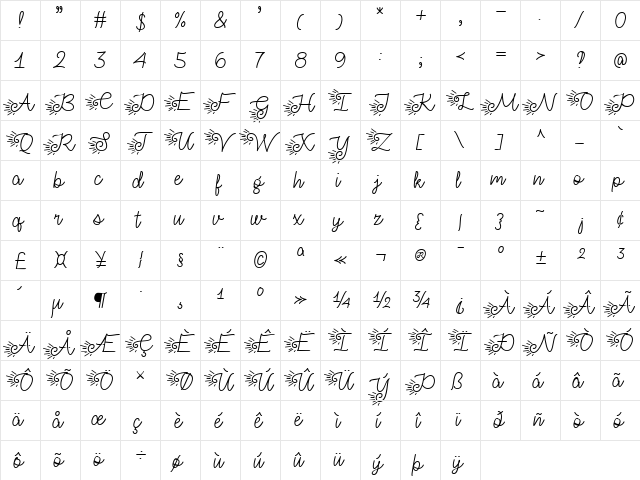
Make Summer Fun Regular
Design Context for Make Summer Fun Typeface
Make Summer Fun has an approachable, lighthearted character — its loose, expressive forms are well-suited to children's content, casual branding, and fun-first design.
Well-suited to food and beverage brands with personality, educational materials, and fun-forward identities.
Font Pairing: Pairs well with a rounded or humanist sans for body copy, maintaining the friendly tone without relying on Make Summer Fun to carry extended reading.
Pro Tip: Use Make Summer Fun at larger display sizes where its expressive character can land. Pair with a clean, simple sans for body copy to maintain readability.